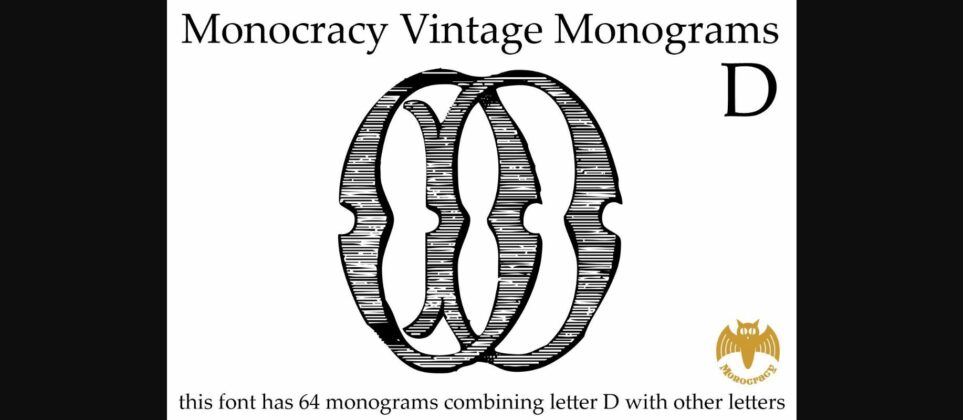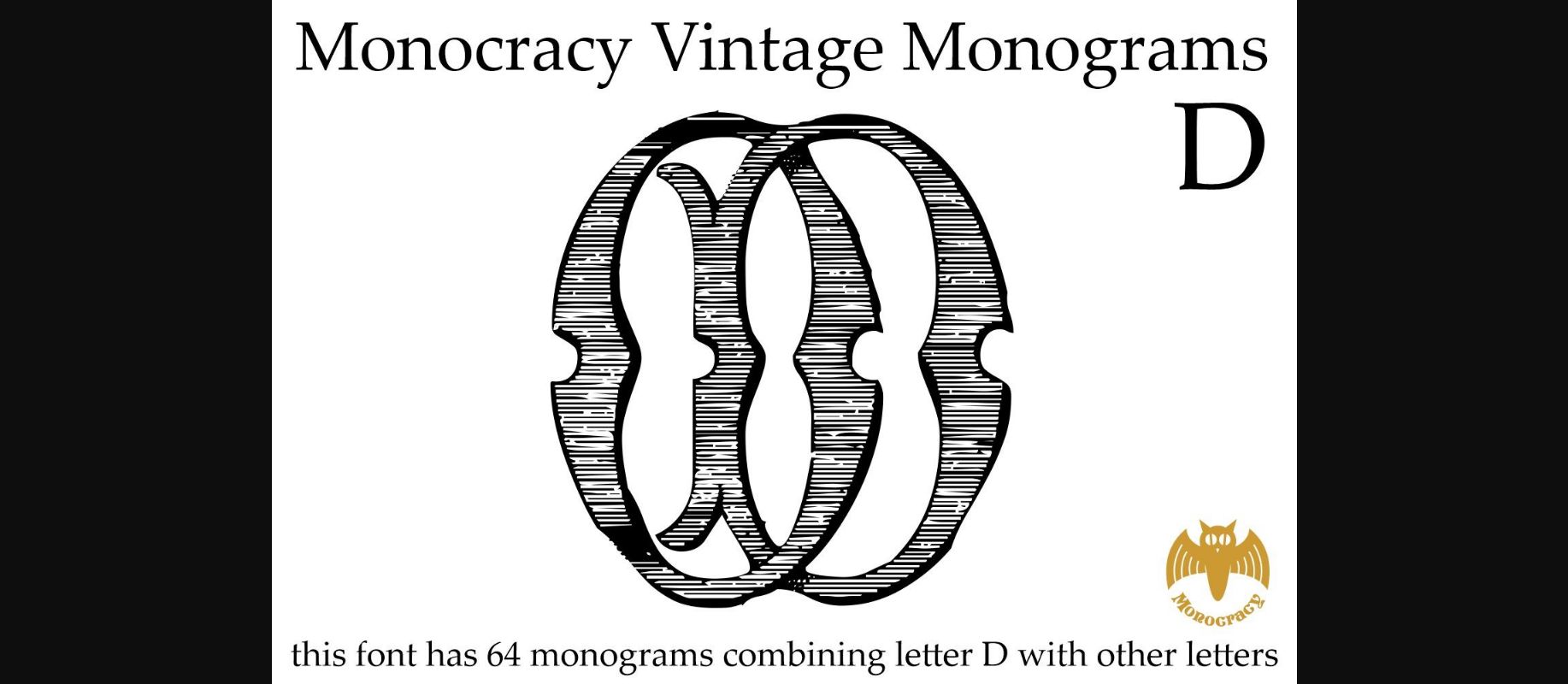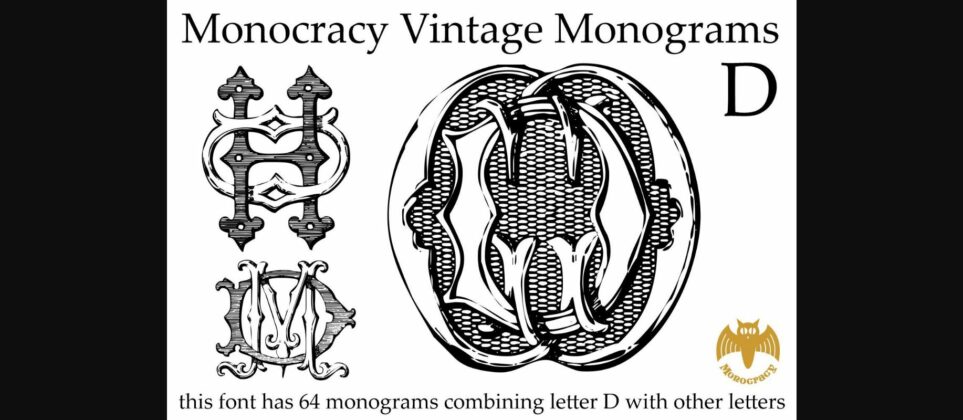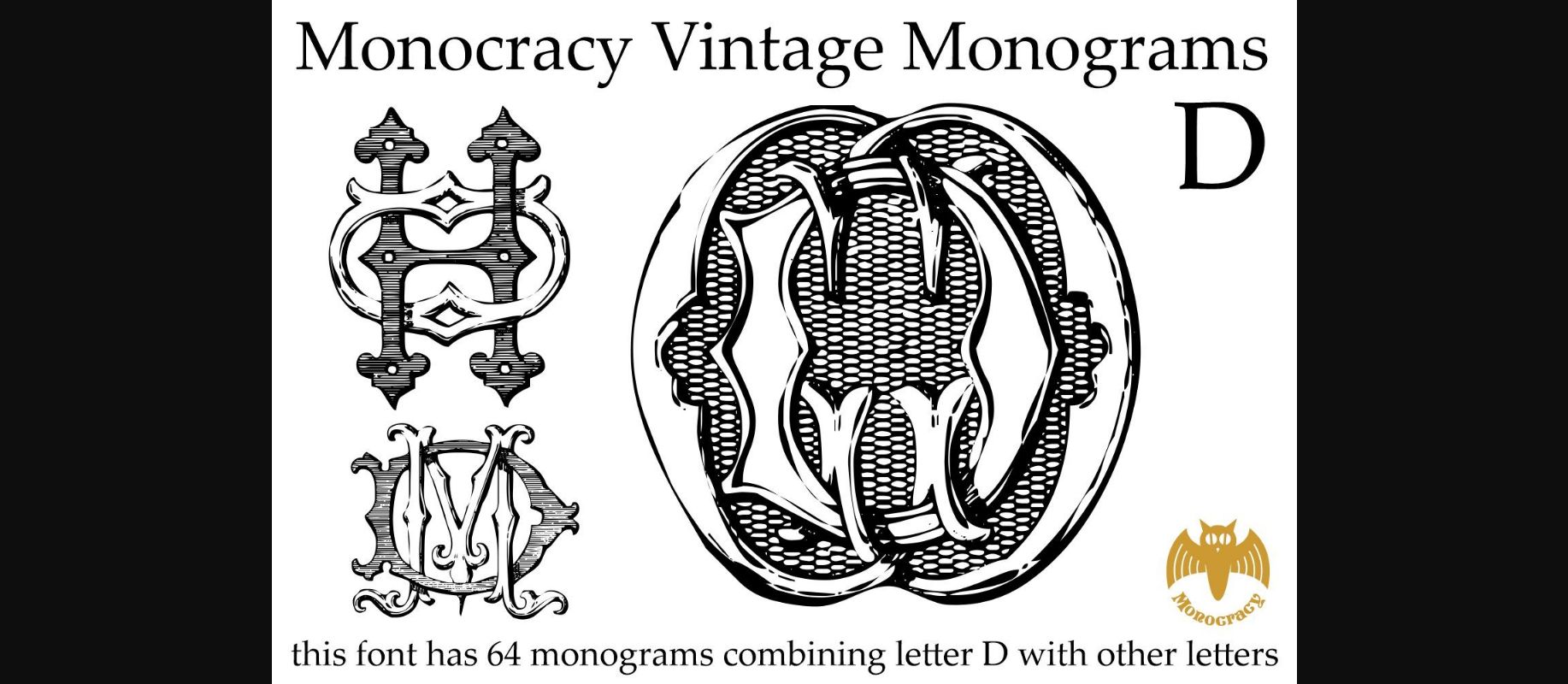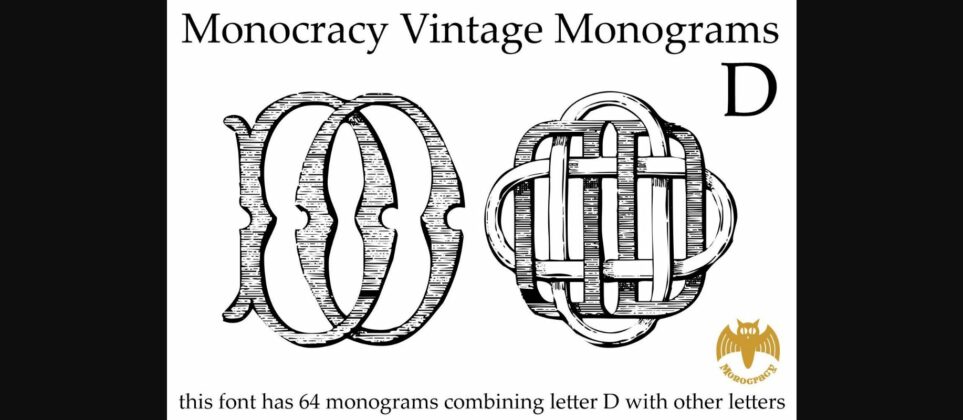
Monocracy Vintage Monograms D Font
About Monocracy Vintage Monograms D Font
Monocracy Vintage Monograms D is a classic font that features elegant and intricate monograms perfect for branding and personalization. Its ornate designs evoke the timeless style of vintage logos and can be used to add a touch of sophistication to invitations, stationery, and packaging. Vintage Monograms D brings an air of refinement and exclusivity to any project.